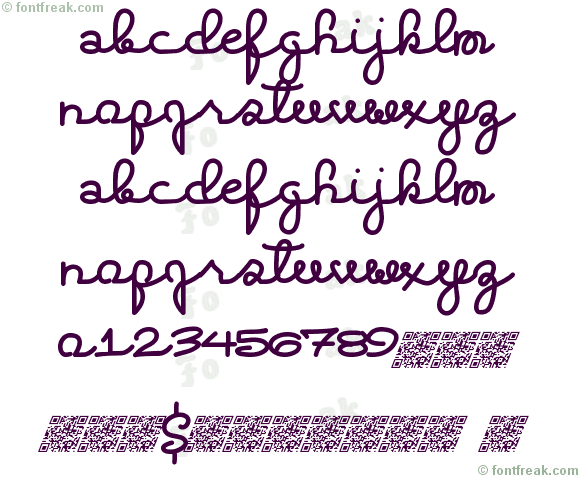
ExtraHighs
About ExtraHighs
ExtraHighs by XEROGRAPHER FONTS is a captivating display font that embodies a playful and energetic spirit. As a freeware typeface, it offers designers and creators the opportunity to incorporate its unique flair into various projects without the constraints of a commercial license. The font showcases a distinct handwritten style with a casual yet artistic touch, making it an ideal choice for a wide range of creative applications.
Visually, the ExtraHighs font features a medium stroke weight with a moderate contrast, lending it a charming and approachable appearance. The letters are well-spaced, ensuring readability while maintaining an organic flow. Decorative elements, such as playful curves and loops, enhance its artistic character, making each letter feel dynamic and lively.
This font is particularly well-suited for use in wedding invitations, where its whimsical nature can add a personal touch to the celebration. It also shines in marketing materials for creative businesses, such as cafes and boutiques, where a friendly and inviting vibe is essential. Additionally, ExtraHighs is perfect for social media graphics, allowing content creators to make eye-catching posts that stand out in crowded feeds. It can also elevate movie posters, giving them a unique and memorable aesthetic that captures attention.
The target audience for ExtraHighs includes graphic designers, small business owners, and content creators looking for a distinctive typeface that helps convey their brand's personality. Its versatility makes it a valuable asset for anyone seeking to infuse their work with character and charm.